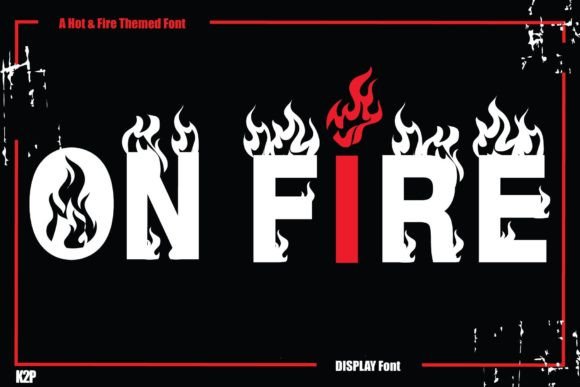
Ignite your designs with On Fire Font, the bold and captivating display font that will set your creations ablaze! This extraordinary font, crafted by the talented KtwoP, exudes a distinct and playful character, making it the perfect choice for kids' books, posters, and playful designs. Its thick, sturdy letters command attention, while its daring style adds a touch of excitement to any project.
With On Fire Font, you'll unlock a world of creative possibilities. Its eye-catching design will make your words come alive, captivating your audience from the very first glance. Perfect for headlines, logos, and invitations, this font will elevate your designs to new heights, leaving a lasting impression on all who see it.
Step into a world where imagination reigns supreme. Let On Fire Font be your guide as you embark on a journey of creativity and self-expression. Its playful spirit will inspire you to craft captivating designs that resonate with your audience. Unleash your inner child and let your imagination run wild as you create designs that spark joy and leave an unforgettable mark.
With On Fire Font, the ordinary becomes extraordinary. Transform your designs into masterpieces that ignite the senses and capture hearts. Its bold and daring personality will elevate your projects, making them stand out from the crowd. Embrace the power of On Fire Font and let your creativity soar to new heights.